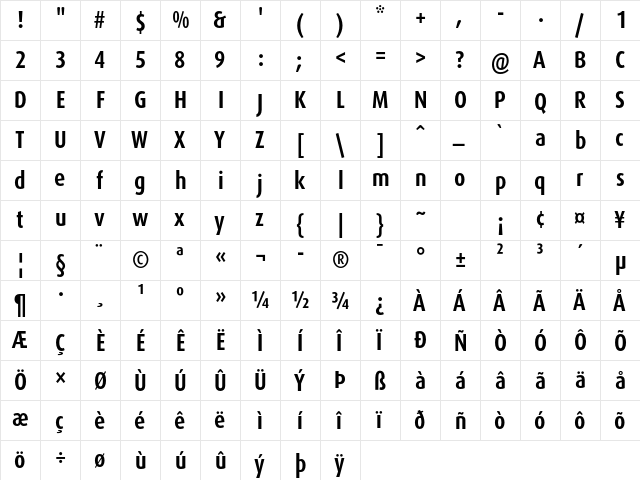
DaxOT CondBold
| Foundry | FSI Fonts und Software GmbH |
| Designer | Hans Reichel |
Design Context for DaxOT Typeface
DaxOT is a composed and adaptable typeface that performs quietly and consistently across a wide range of design contexts. The heavy weight commands attention and anchors typographic hierarchies. Its narrow stance lets it pack a punch even in space-constrained designs.